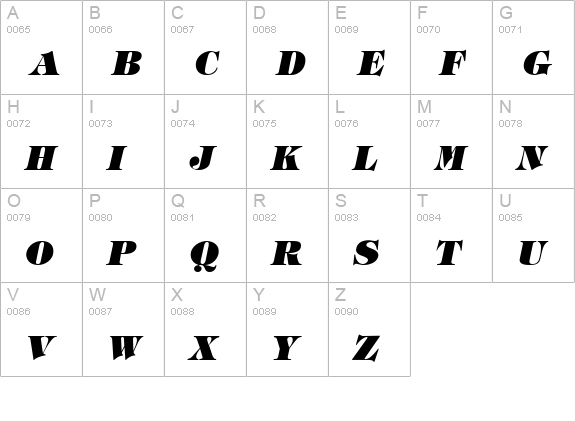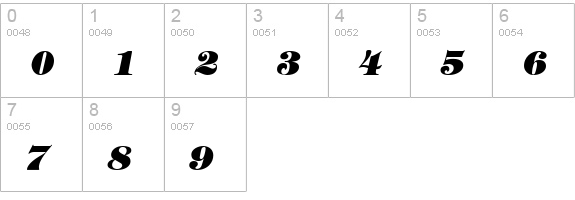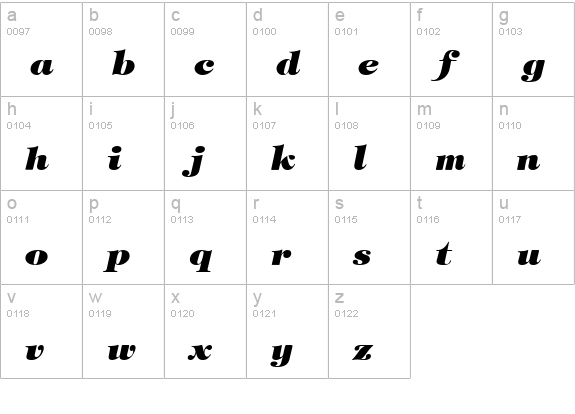
Sophisticate Black SSi Bold Italic is a maximum-weight, dramatic, italic variant in the Sophisticate typeface family \xE2\x80\x94 well suited to maximum-impact headlines, posters, and packaging.
The Sophisticate Black SSi Bold Italic font is a true embodiment of elegance and refinement. With its sleek and stylish design, this font exudes a sense of sophistication that is perfect for any project or design that requires a touch of class. The bold and italic variations of the Sophisticate Black font add an extra layer of distinction to your typography, making it stand out and leave a lasting impression. Its clean lines and sharp edges create a sense of professionalism, making it an excellent choice for corporate logos, branding materials, and high-end print designs. What sets the Sophisticate Black SSi Bold Italic font apart is not only its impeccable aesthetics, but also the fact that it is available for free. Yes, you read it right - this exquisite font can be freely downloaded from FontsMarket.com. This means that you don't have to break the bank to access a font that exudes such elegance and sophistication. Whether you are a professional designer looking to elevate your work or an individual looking to add a touch of class to your personal projects, the Sophisticate Black SSi Bold Italic font is the ideal choice. Its versatility allows it to seamlessly blend into a wide range of design styles, while its bold and italic variations offer endless creative possibilities. With its timeless appeal and freely available download, the Sophisticate Black SSi Bold Italic font is a must-have for anyone seeking to make a lasting impression with their typography. So don't hesitate - head over to FontsMarket.com and get your hands on this exquisite font today!